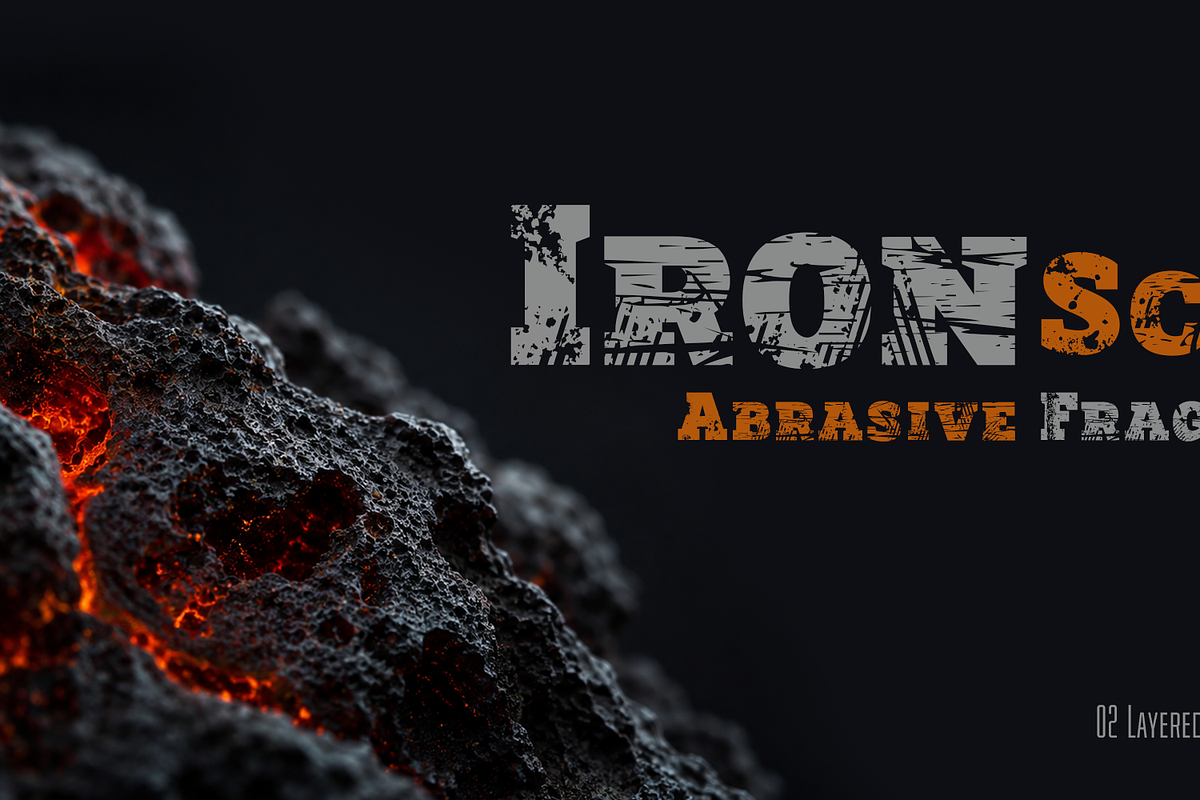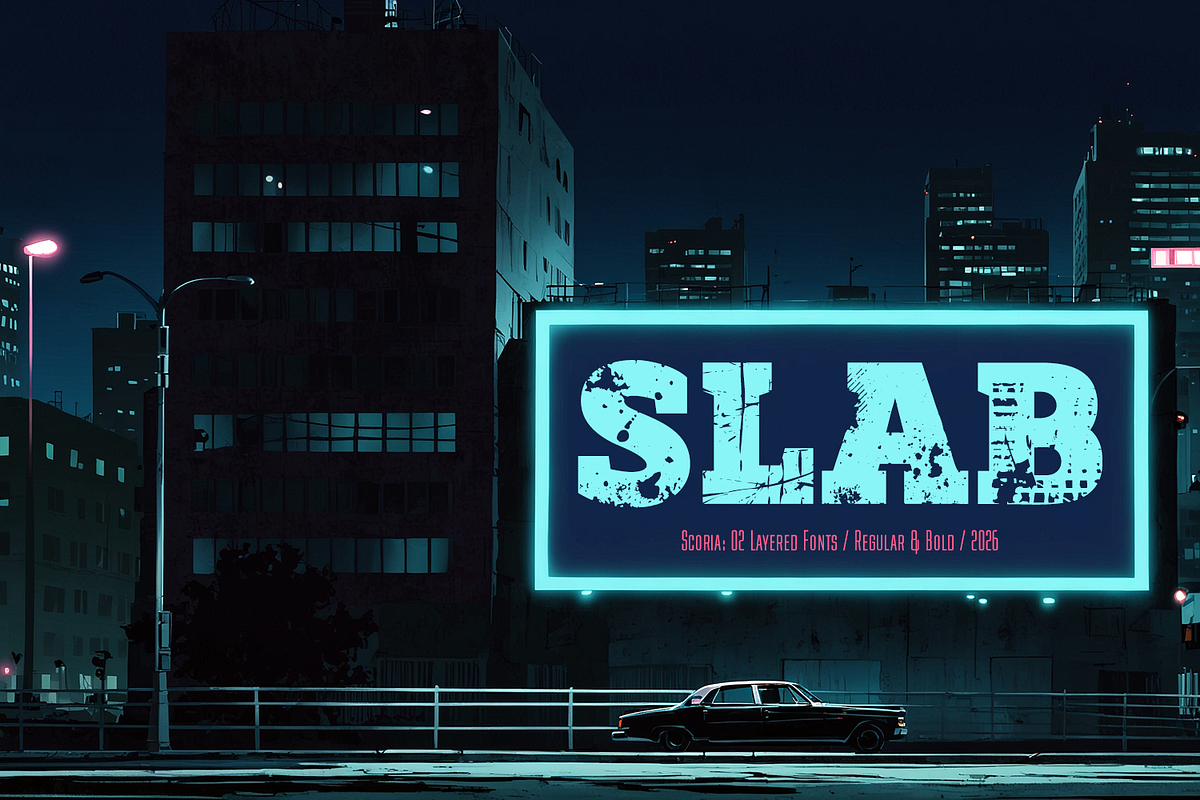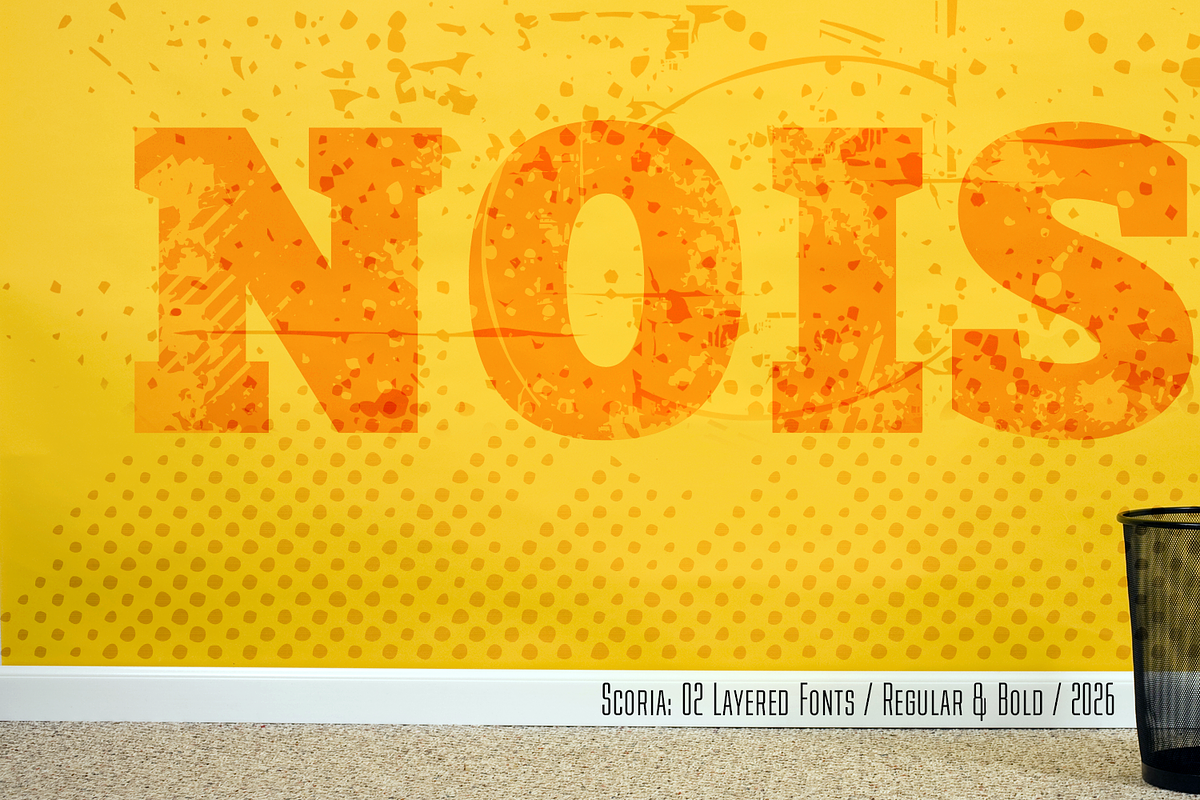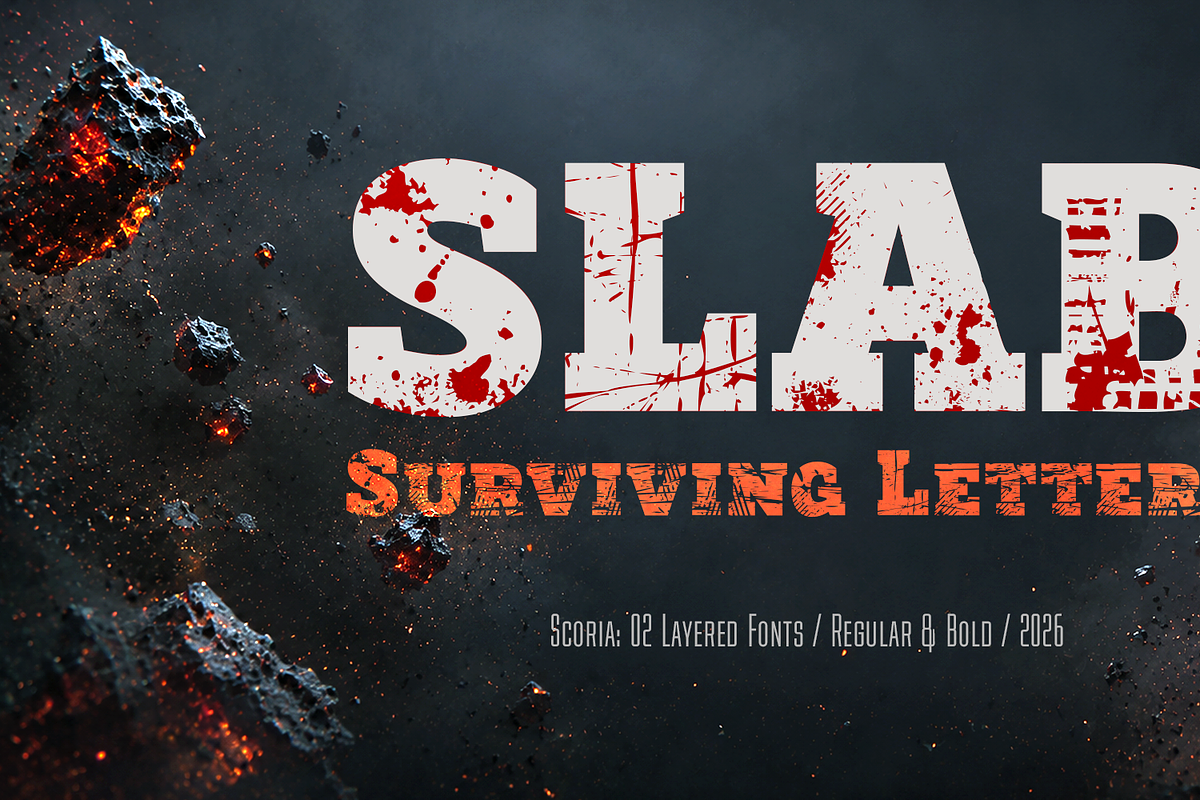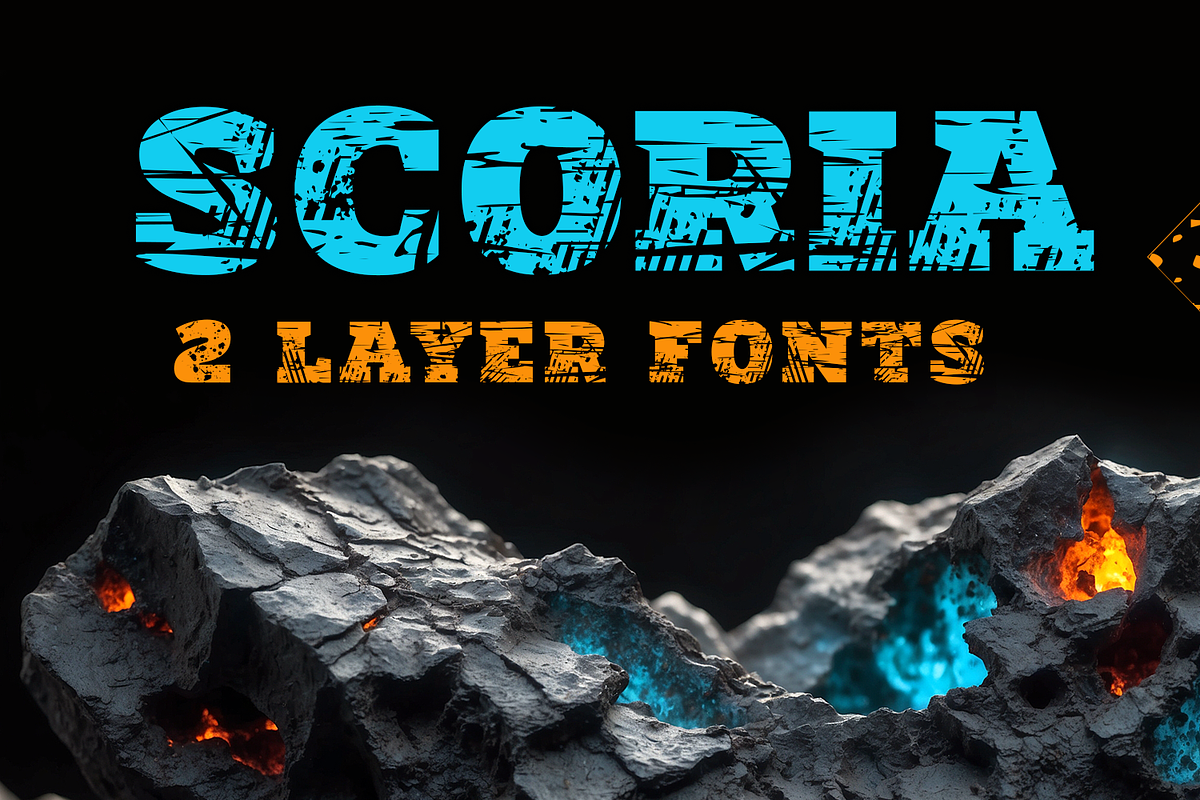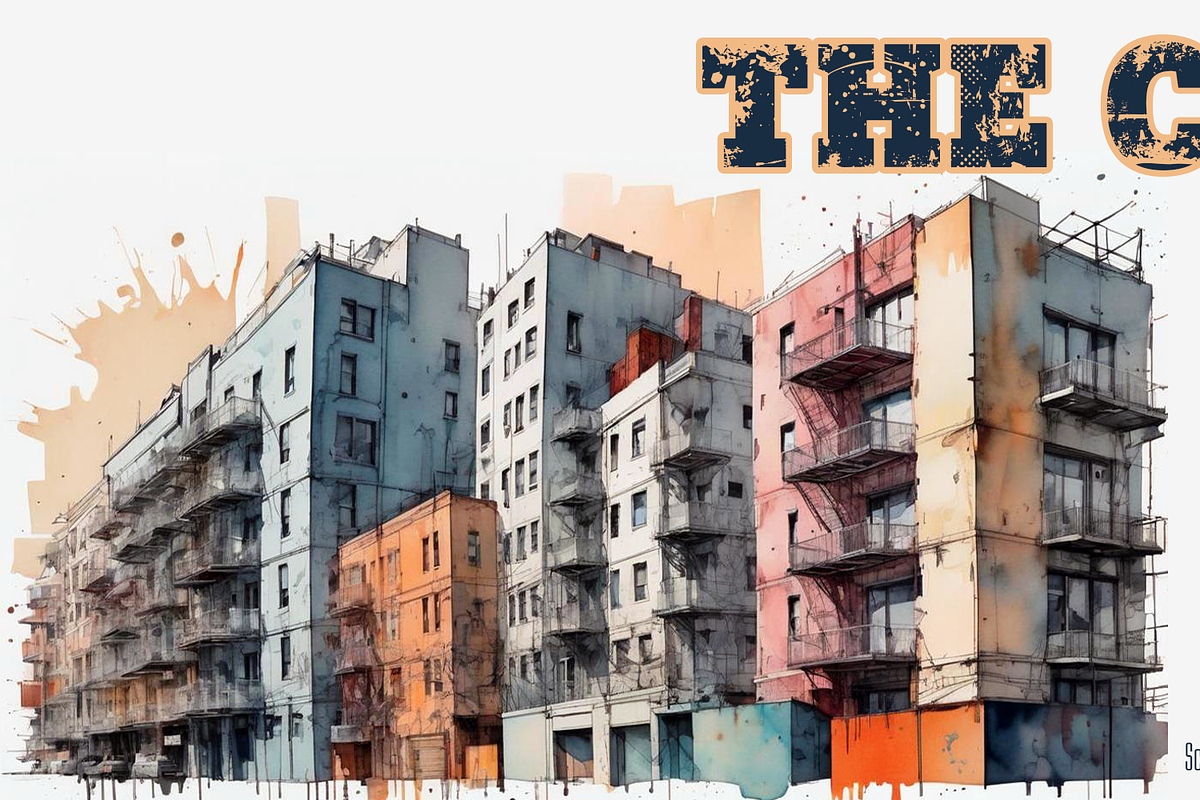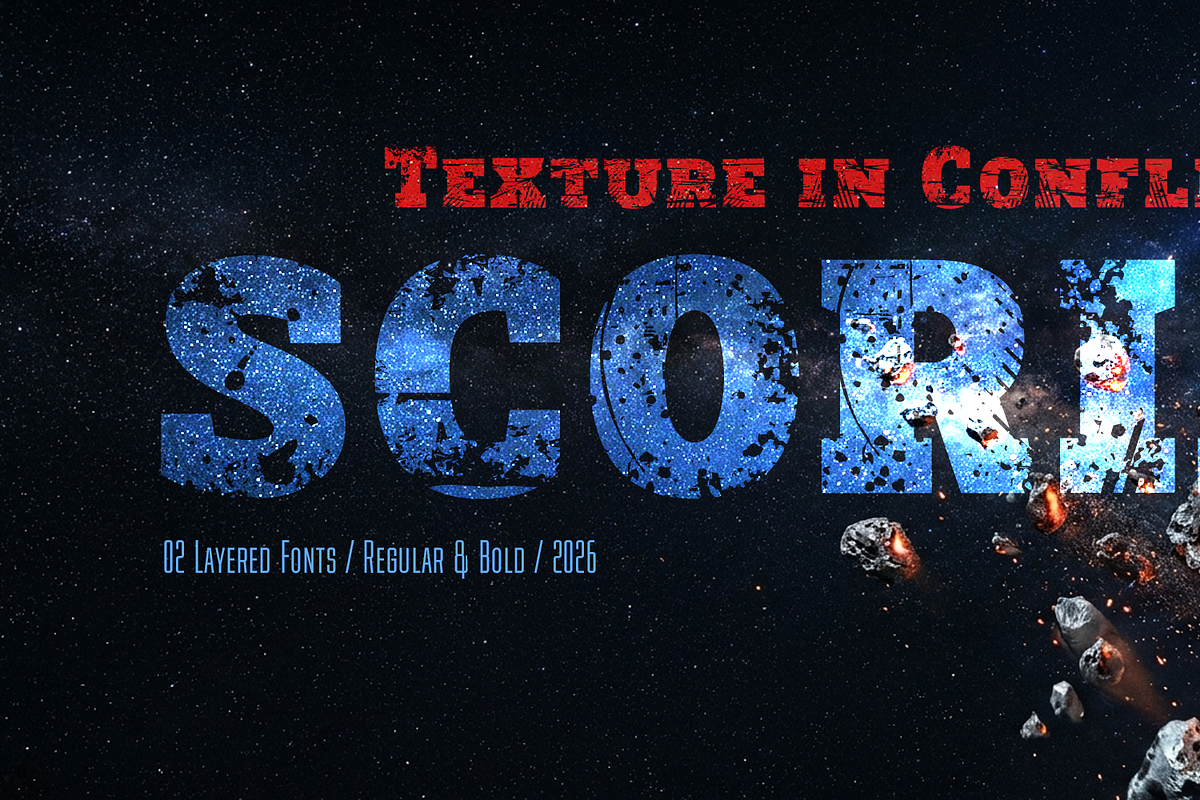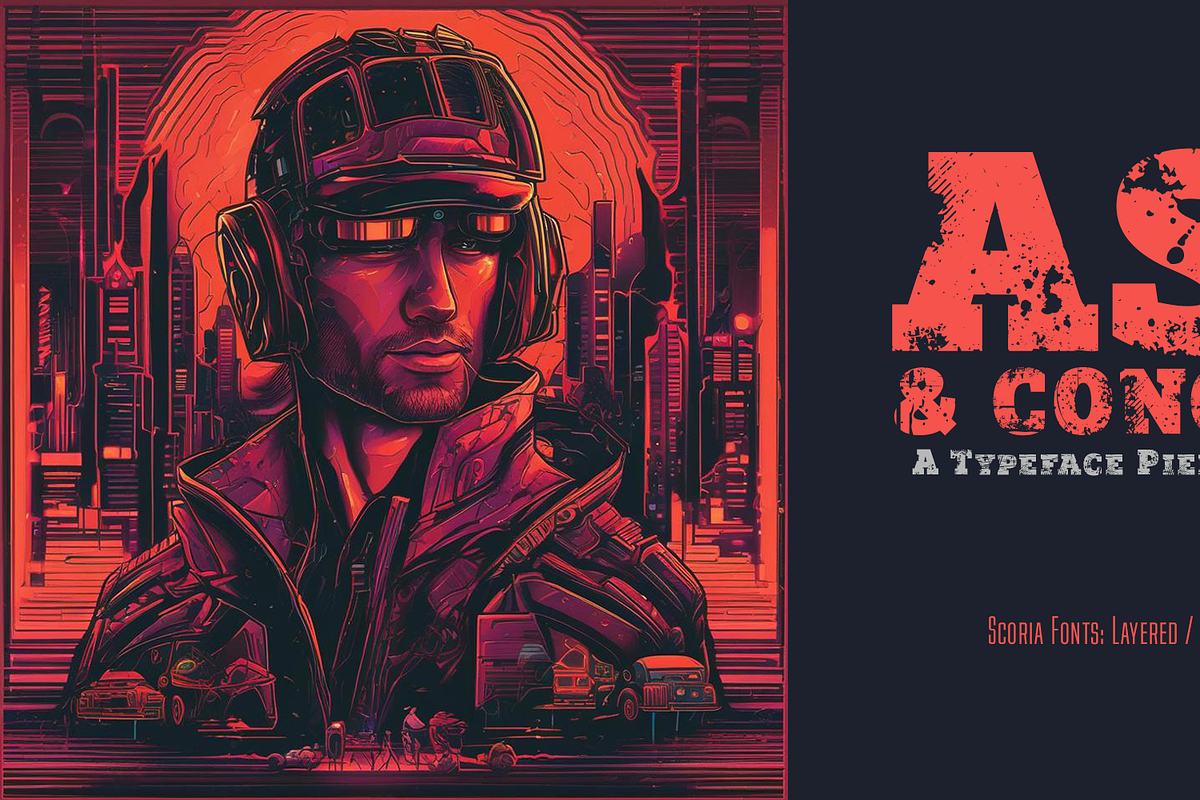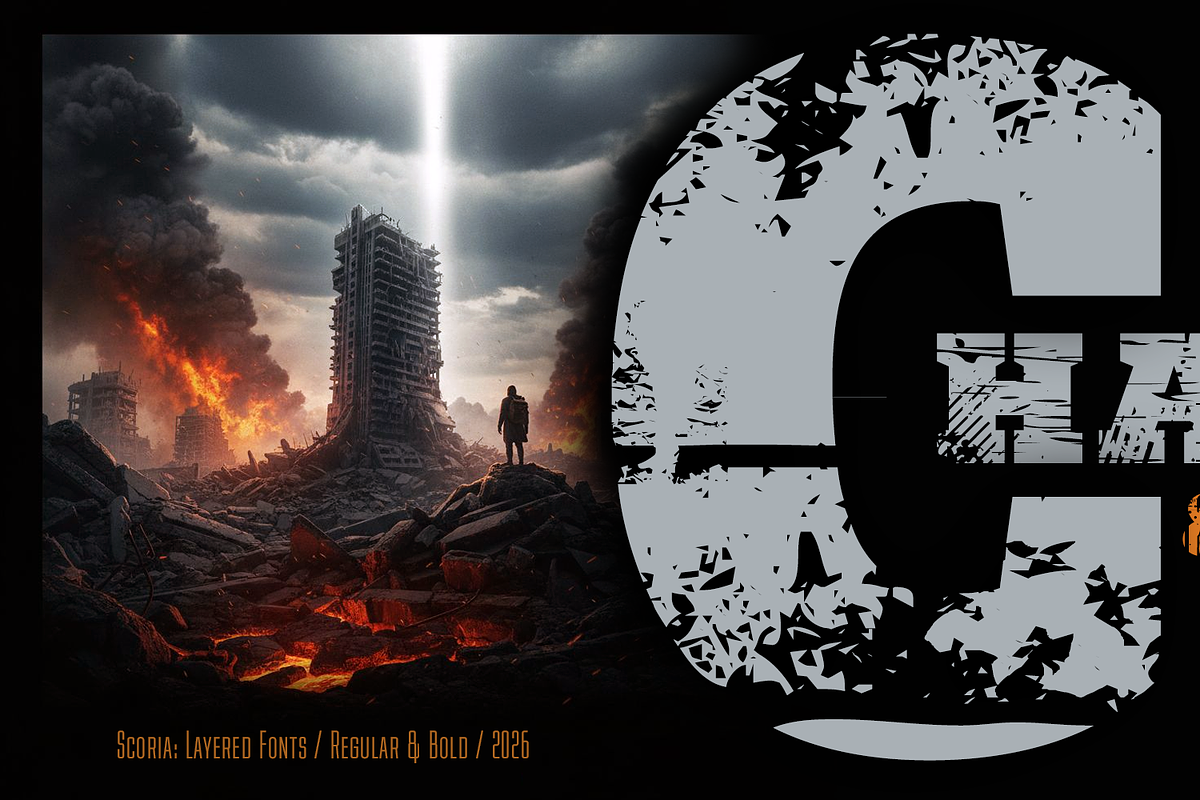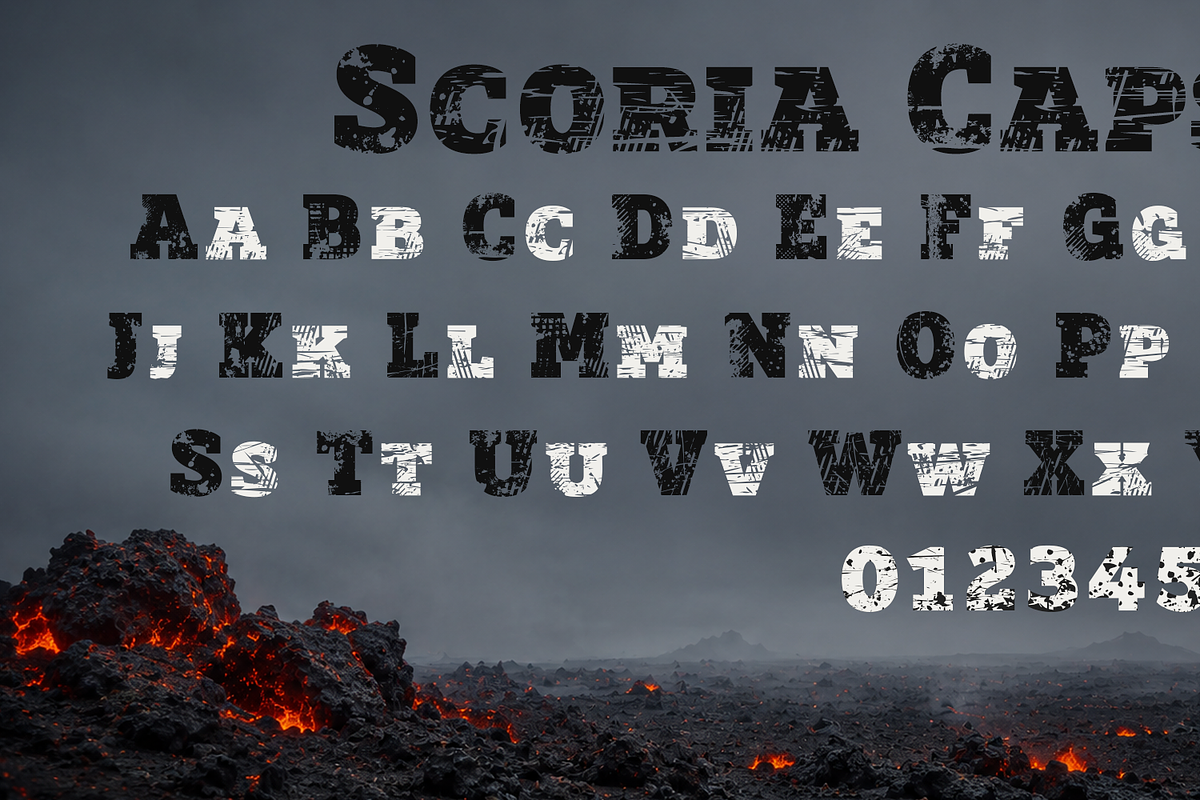
Scoria Slab Caps
Scoria Caps was born as a rescued typographic relic, with its distinctive slab serif style, from a landscape devastated by a world torn apart.
Its presence is aggressive, heavy, and profoundly expressive, like a fragment of industrial architecture surviving a catastrophe. It screams from the depths of its broken and eroded texture. Each letter seems to carry scars, cracks, and memory, in a declaration of typographic rebellion that adapts to the most intense and urban contexts, a symbol of resistance amidst chaos.
Scoria Caps defies polished, uniform perfection; it is a square, grunge, slab serif typeface, textured, eroded, and deliberately dirty.
One of Scoria Caps most distinctive features is its layered font system. I designed the Regular and Bold versions as inseparable companions to work together in overlapping, allowing for the creation of purely typographic headlines in two or more colors with enormous visual impact.